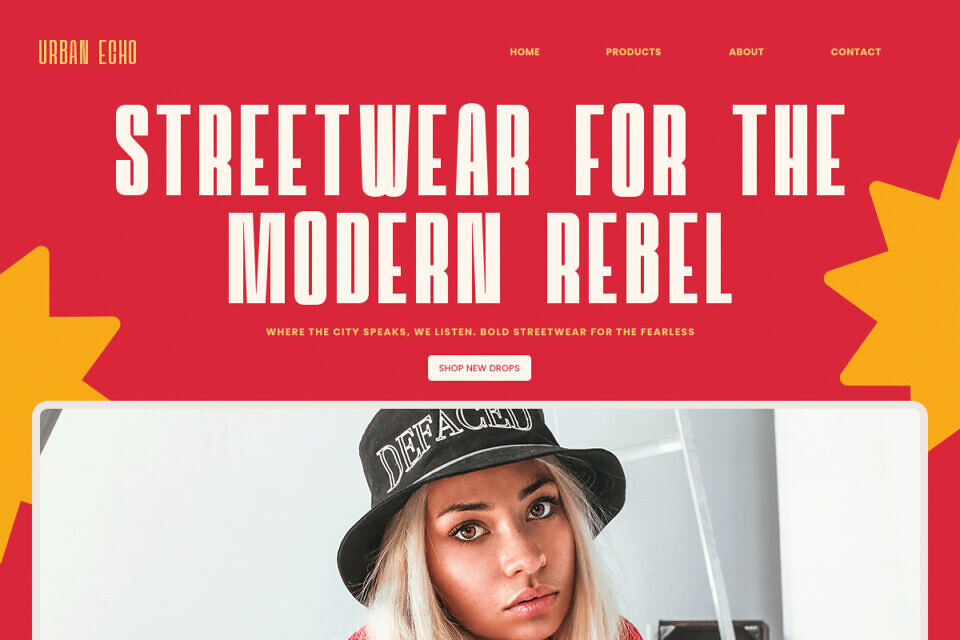
Odrine Font
Odrine is a retro-modern condensed sans font crafted for strong visual impact and refined clarity. Its geometric proportions and tight spacing create a powerful yet sophisticated look for logos, ads, and editorial titles. Featuring 16 weights from thin to black with variable support, Odrine offers flexibility for brand systems and modern design projects.